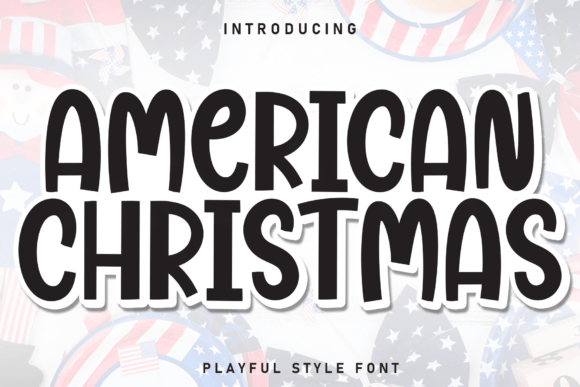
The Magic of American Christmas Font: A Festive Design Essential
It’s that time of the year again – the holiday season is just around the corner, and as designers, crafters, and creative hobbyists, we’re on the lookout for the perfect elements to make our Christmas projects shine. I still remember the year I was working on a Christmas card design for a client, and I was struggling to find the right font to capture the festive spirit. The project had a playful, casual vibe, and I needed a font that would match. That’s when I stumbled upon the “American Christmas” font, and it instantly became my go-to for the holiday season.
What Makes American Christmas Font So Special?
The “American Christmas” font is a festive, handwritten display font that exudes a cheerful, casual style. Its playful curves and strokes make it perfect for adding a personal, holiday touch to Christmas cards, decorations, and designs. Here are some of the things I love about this font:
• ✨ Festive and fun, with a unique, handwritten feel
• ✅ Perfect for Christmas cards, invitations, and decorations
• 🎉 Playful curves and strokes that add a touch of whimsy to any design
• 👍 Highly legible, even at smaller sizes
Honest Review: The Good and the Quirks
While I absolutely adore the “American Christmas” font, there are a few quirks to be aware of:
• 🤔 Limited character set: While the font has a wide range of characters, it may not have every special character or glyph you need.
• ⚠️ Not suitable for body text: This font is best used for headlines, titles, and short phrases – it may not be the best choice for longer blocks of text.
One of the best things about the “American Christmas” font is its OpenType features and glyphs. Here are a few tips for exploring these features:
• Experiment with different stylistic alternates to add visual interest to your design.
• Use the font’s built-in ligatures and swashes to add a touch of elegance to your design.
The Story Behind American Christmas Font
The “American Christmas” font was designed by a talented type designer who wanted to capture the essence of the holiday season. Inspired by vintage Christmas cards and decorations, the font features playful curves and strokes that evoke a sense of nostalgia and wonder.
Q: What is the “American Christmas” font?
A festive, handwritten display font perfect for Christmas cards, decorations, and designs.